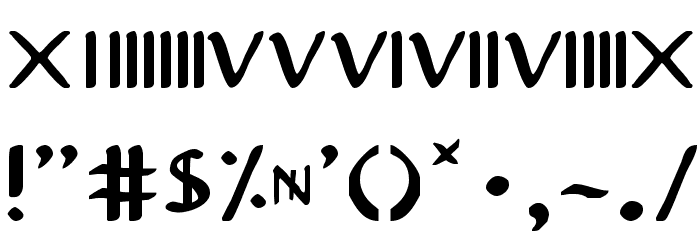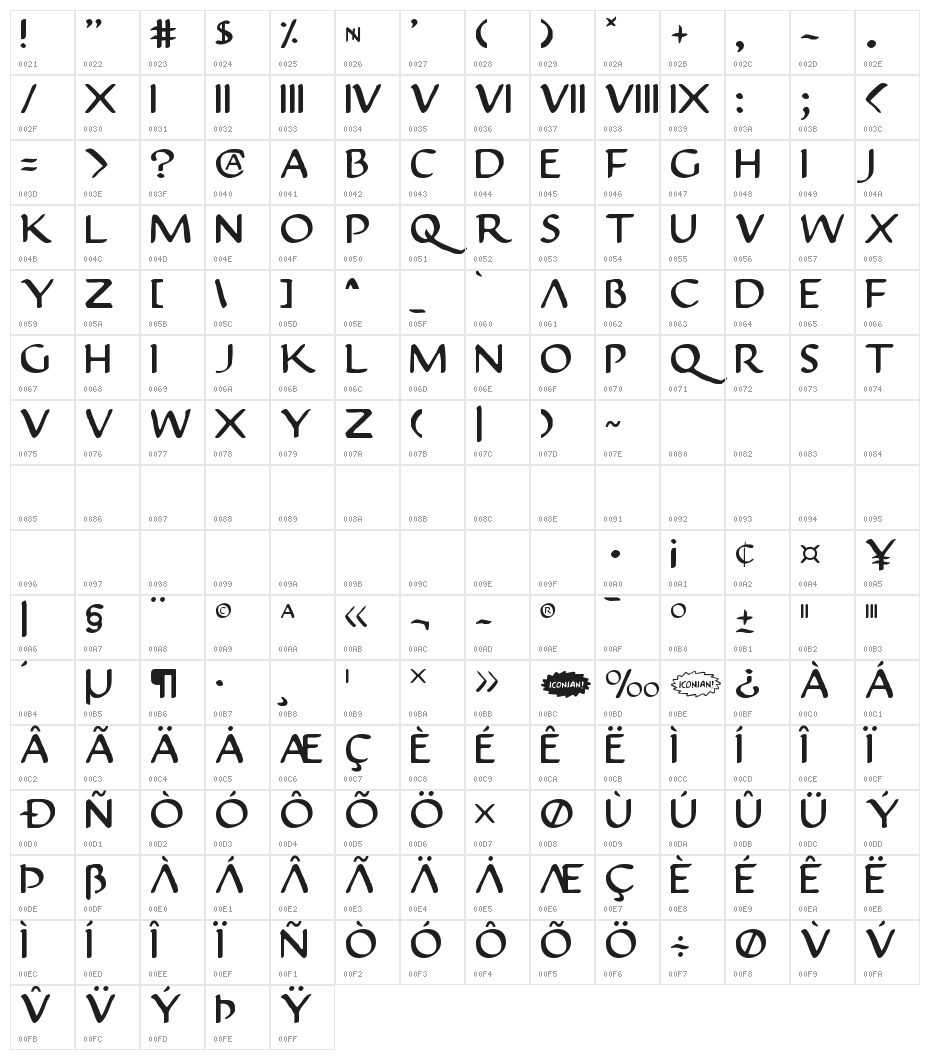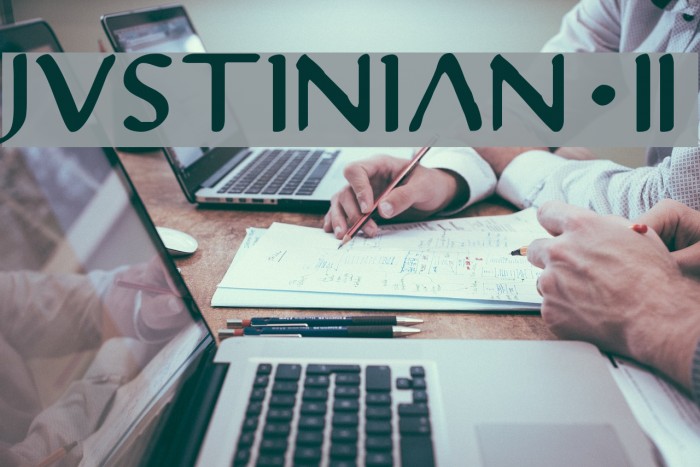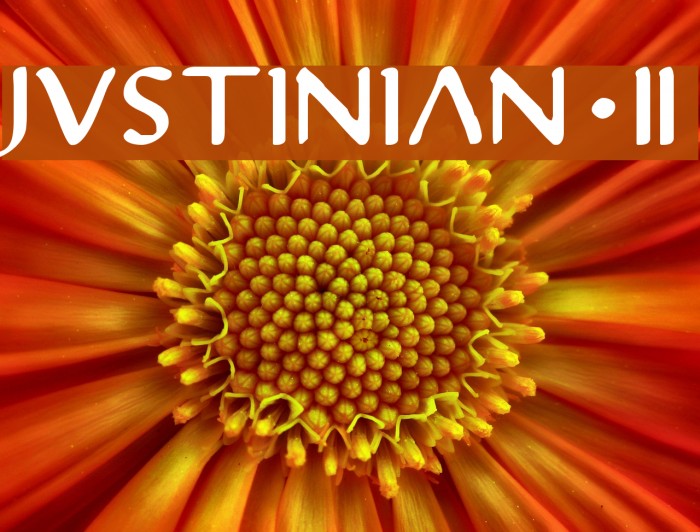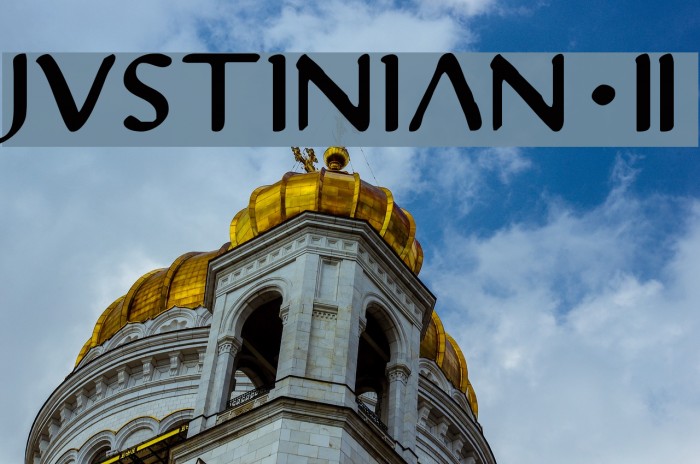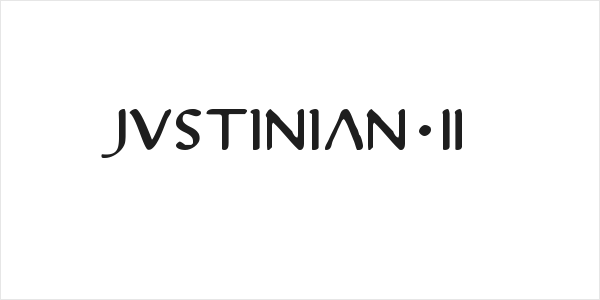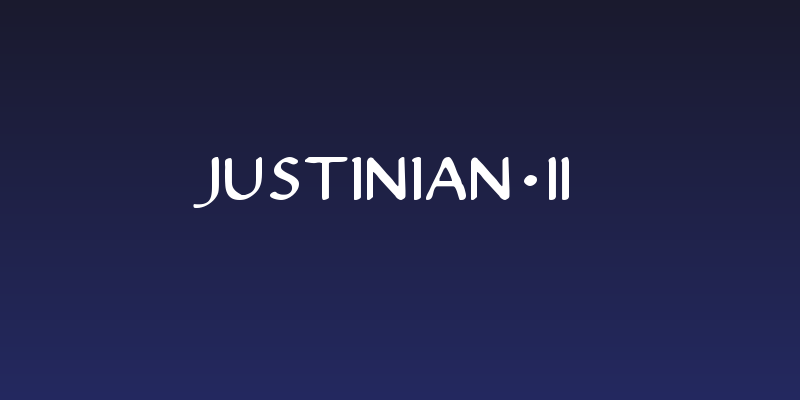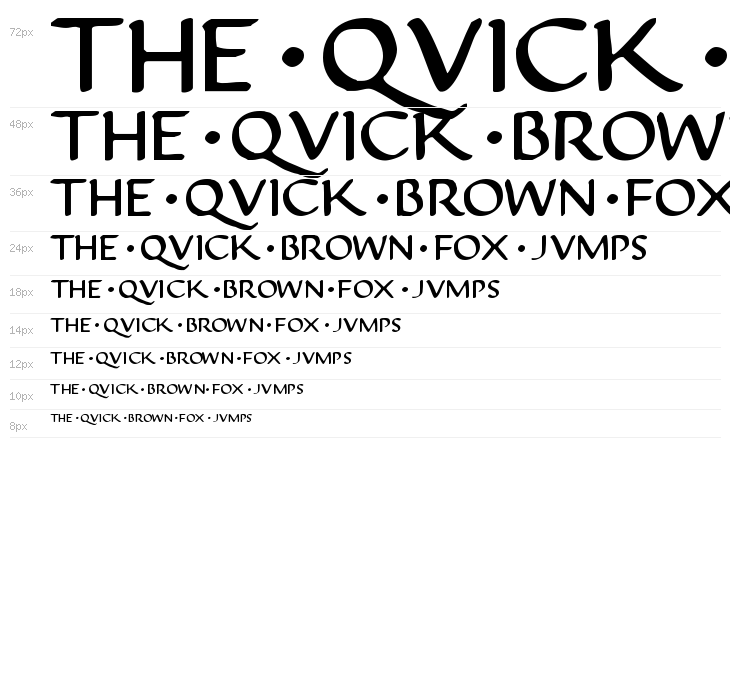
Justinian 2 Font
Justinian 2 Description
This font features a unique blend of modern and classic elements, characterized by its bold and slightly condensed letterforms. The uppercase letters exhibit a distinct angularity with sharp edges and subtle curves, giving it a dynamic and assertive appearance. The lowercase letters maintain a consistent style, complementing the uppercase with their slightly rounded forms. The numerals are designed with a similar aesthetic, ensuring uniformity across all characters. Special characters are crafted with attention to detail, enhancing the font's versatility. The overall design is clean and legible, making it suitable for various applications.